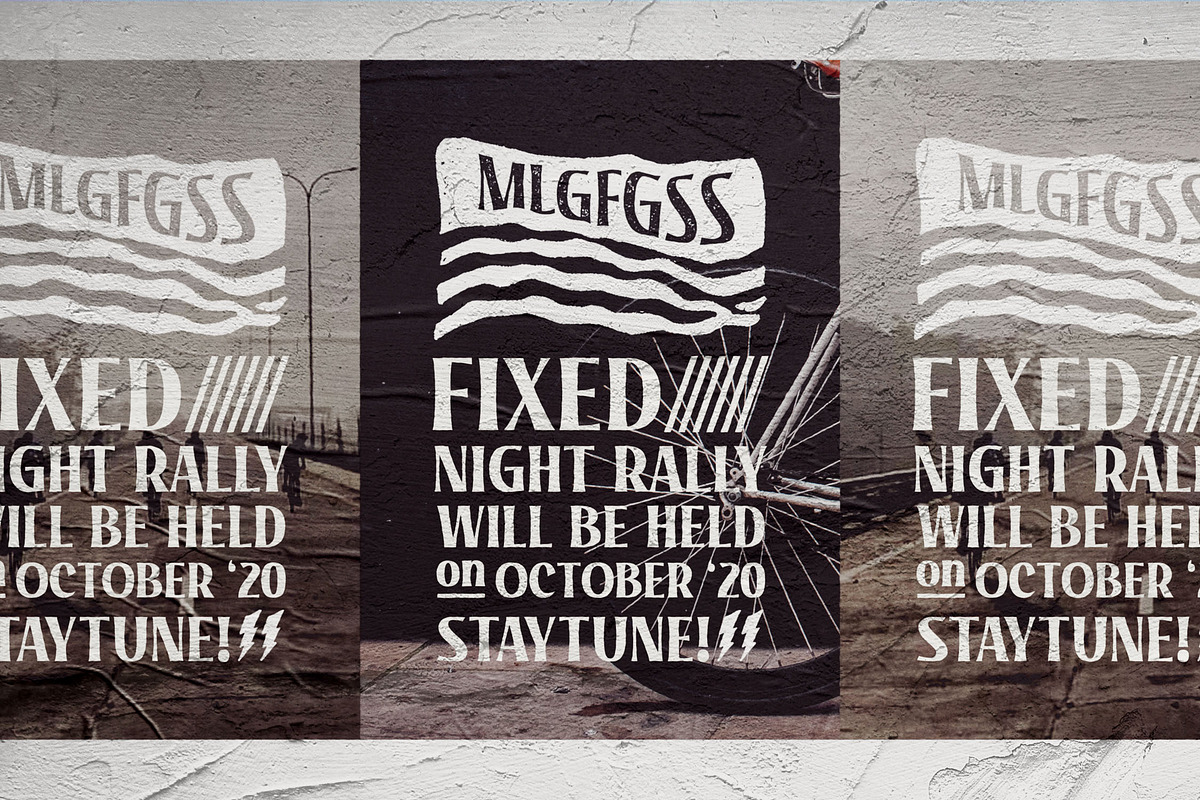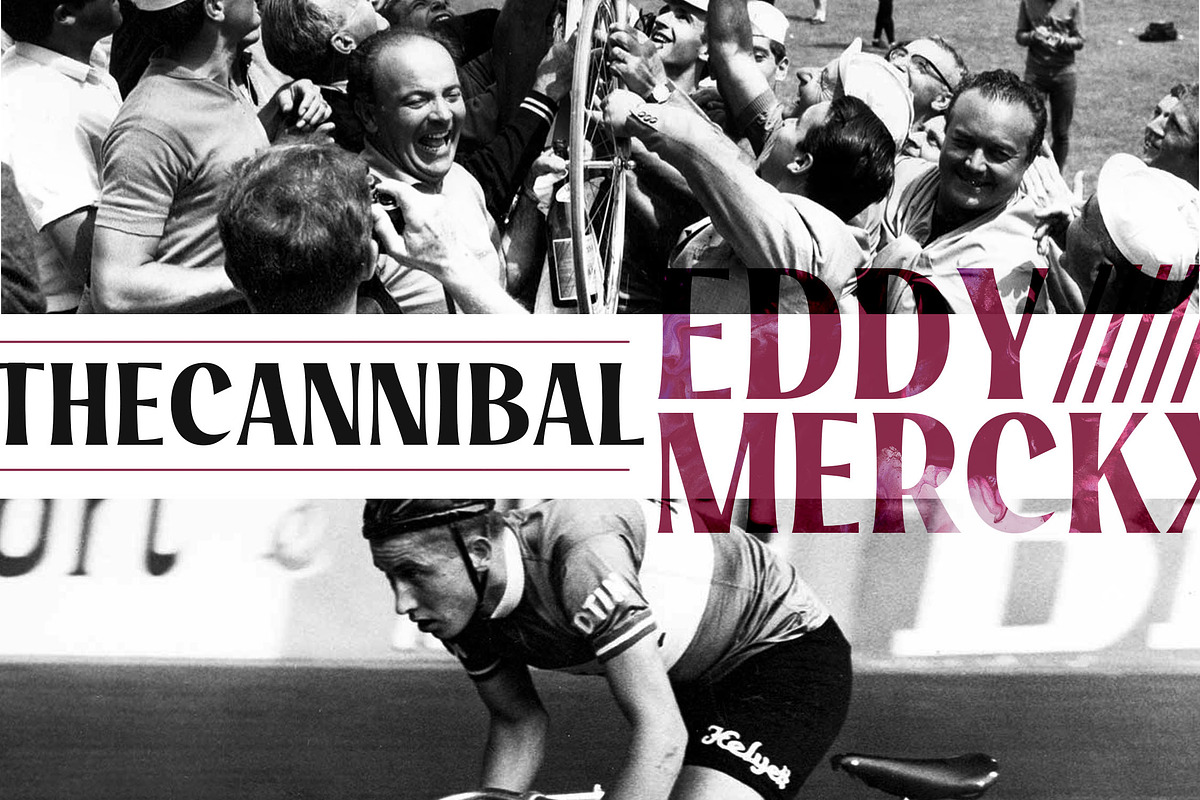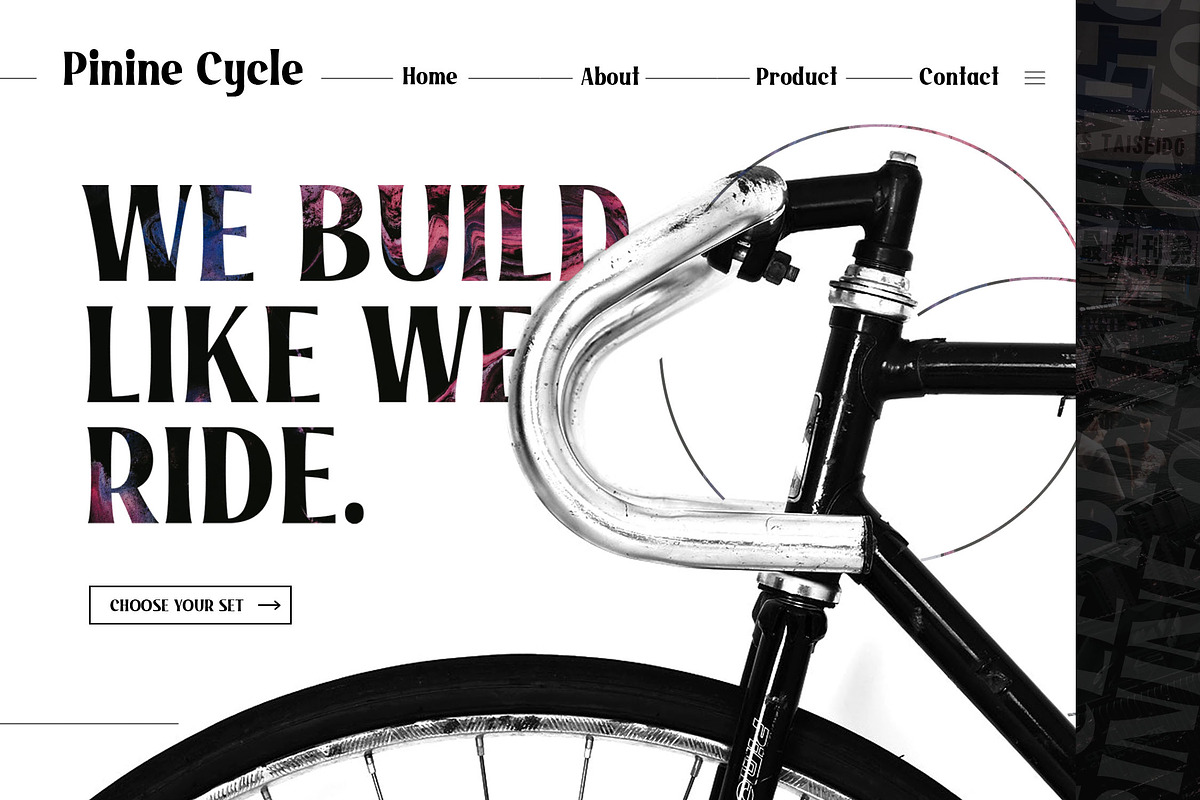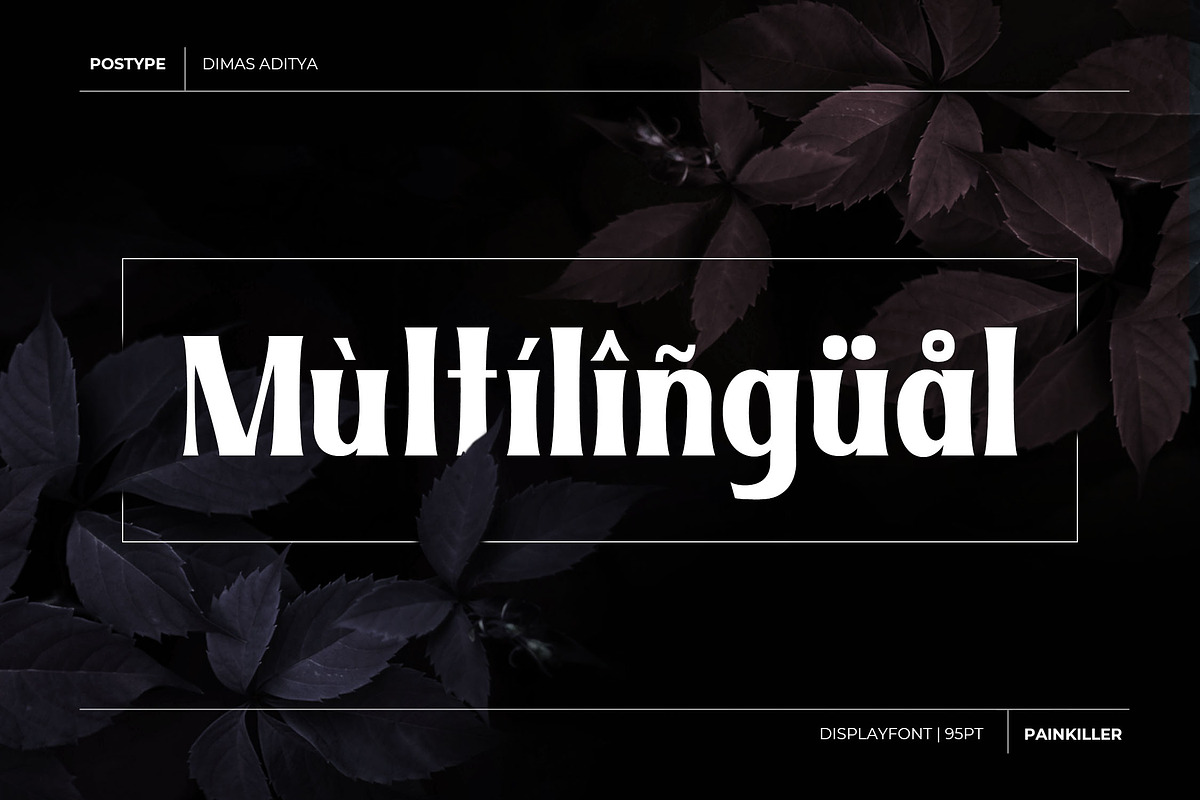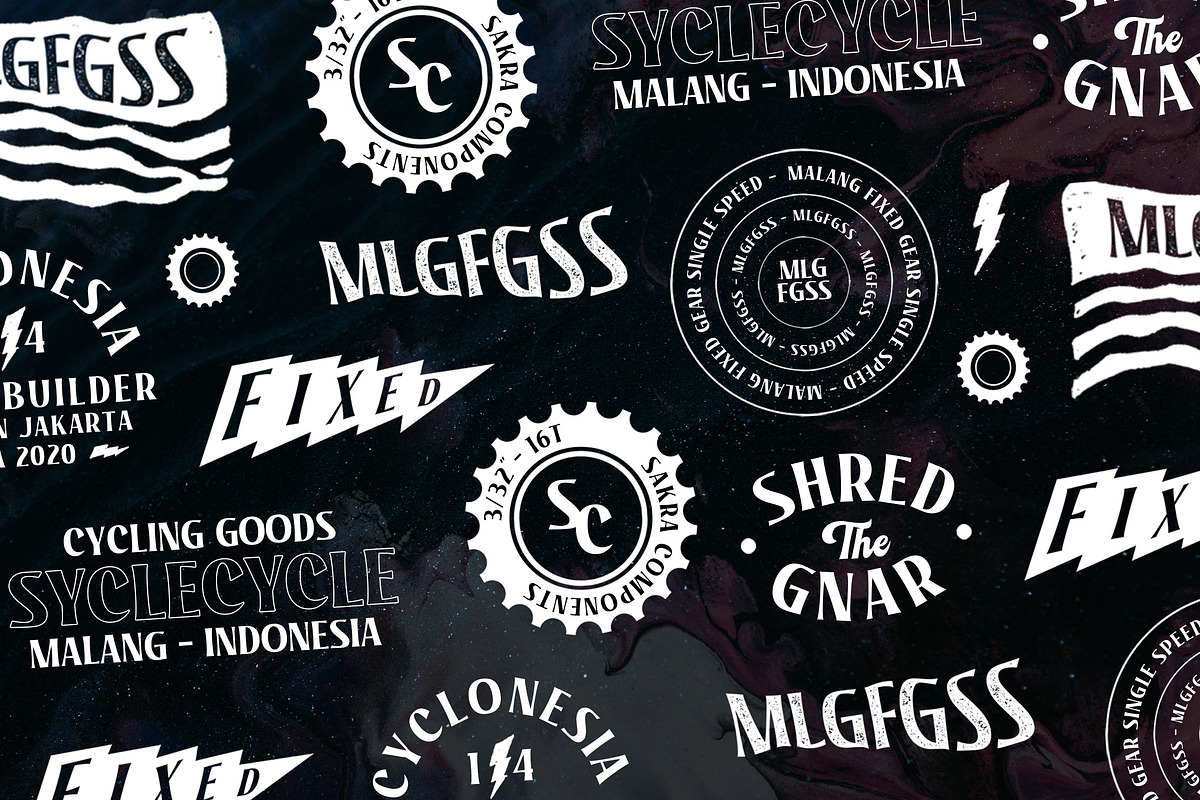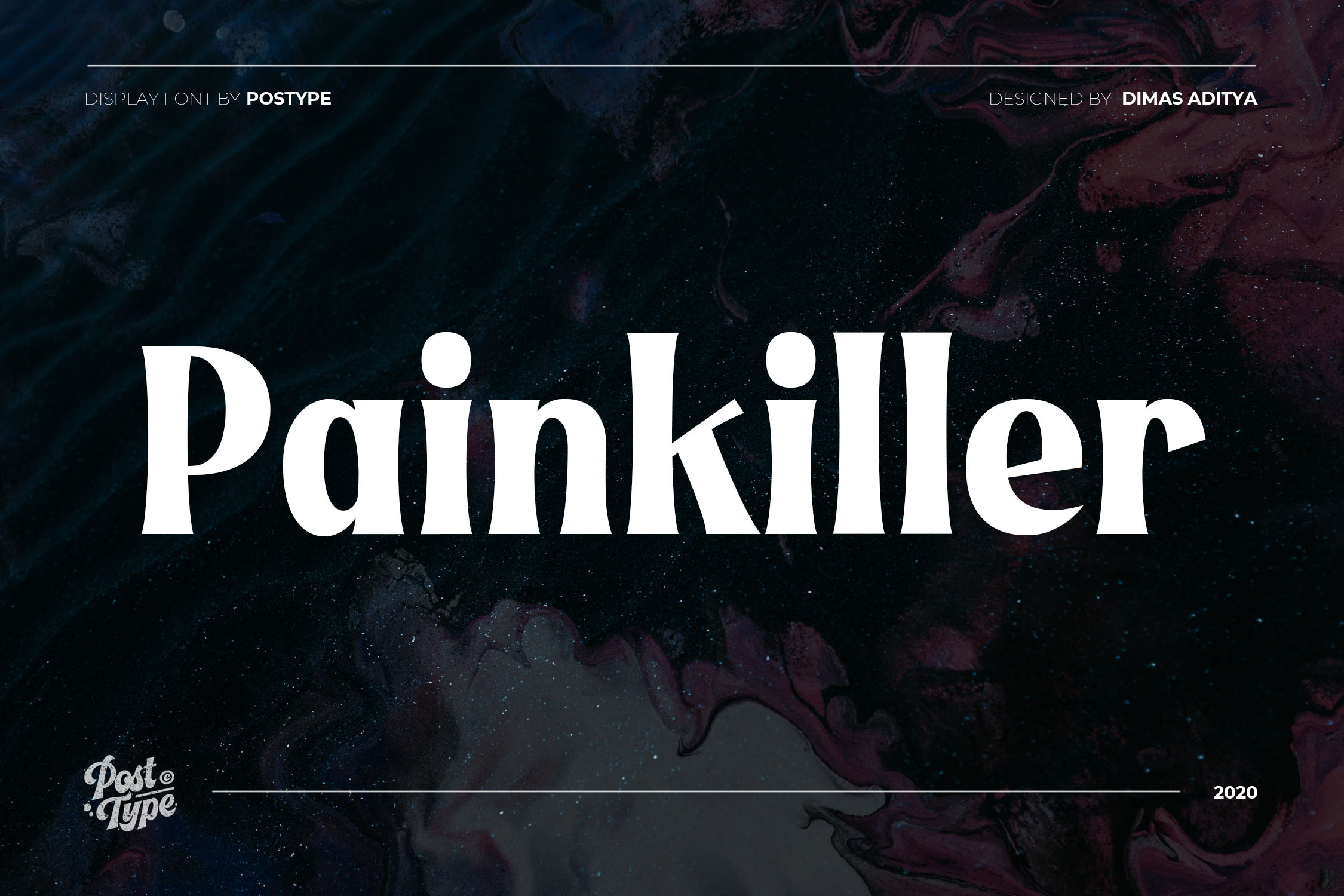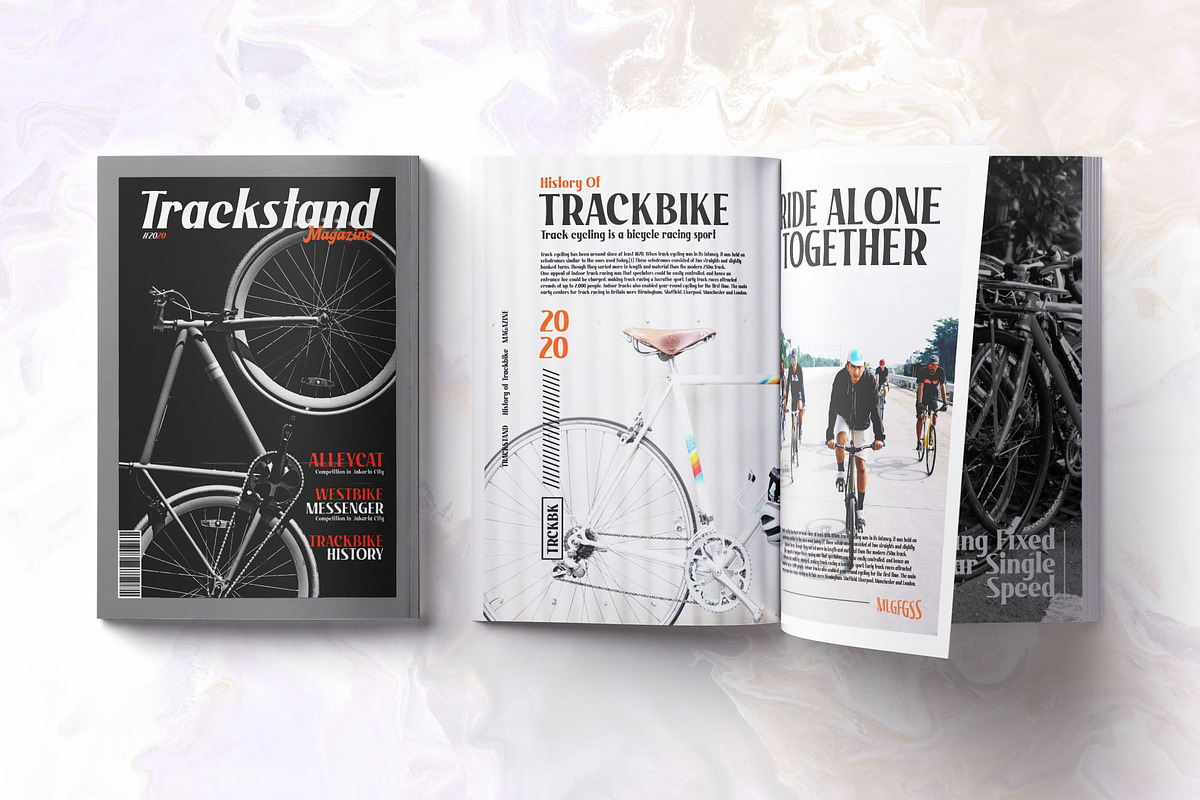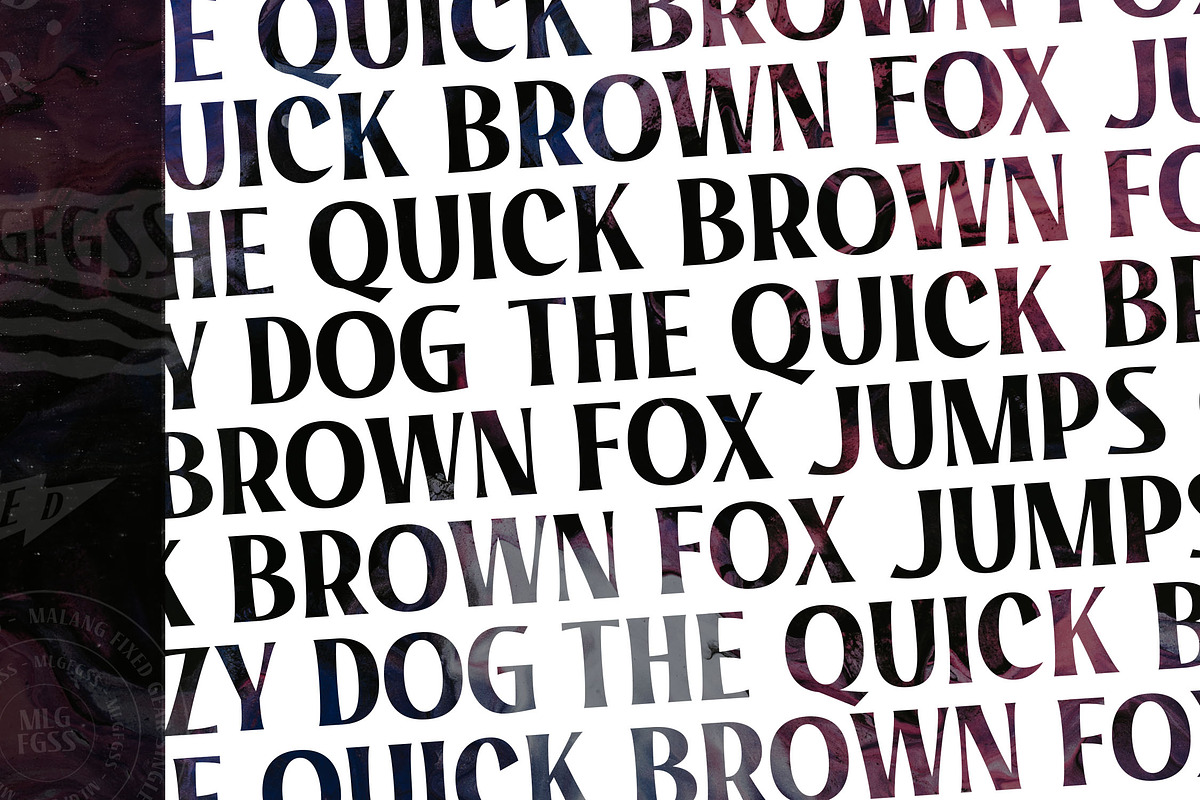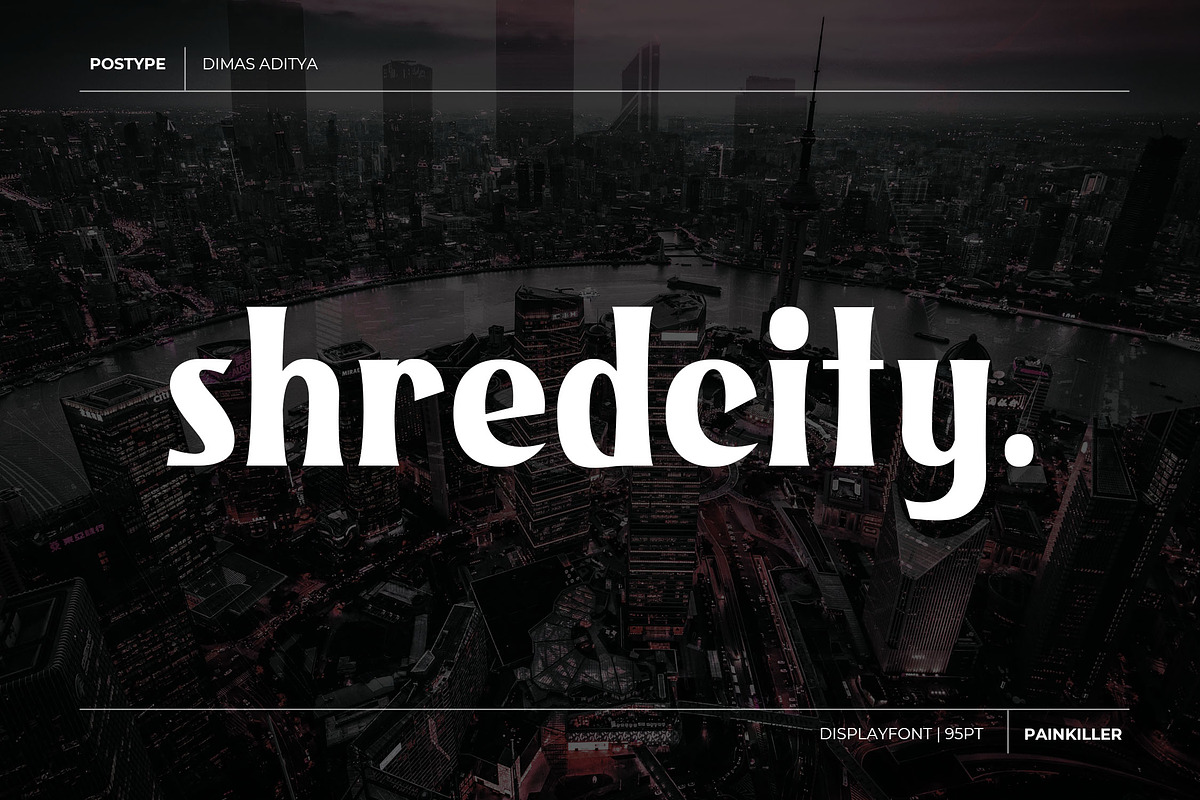
Painkiller - Display Font
Introducing our new font Painkiller. Suitable for any design needs : logo, branding, modern advertising design, logos, poster quote, book / cover Title, editorial design, website / blog, card, t-shirts, and any hand-lettered needs.
Consist of Standard upper/lower case characters, numerals, punctuations, some multilingual letters. Don't worry, there will be surprises in the form of updates to this font!